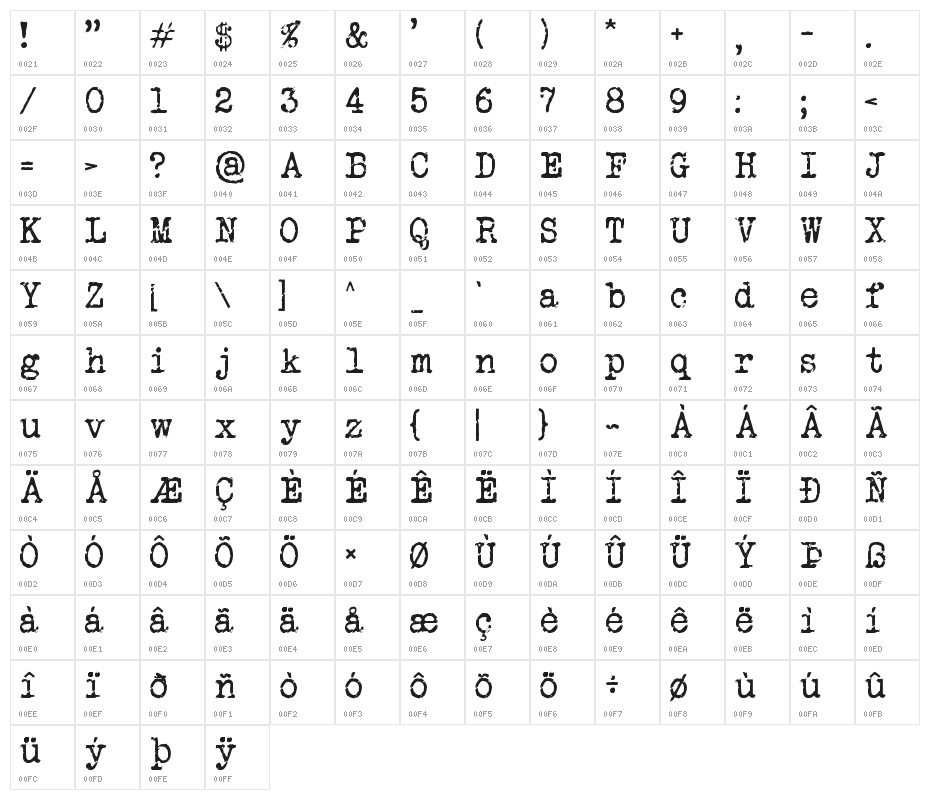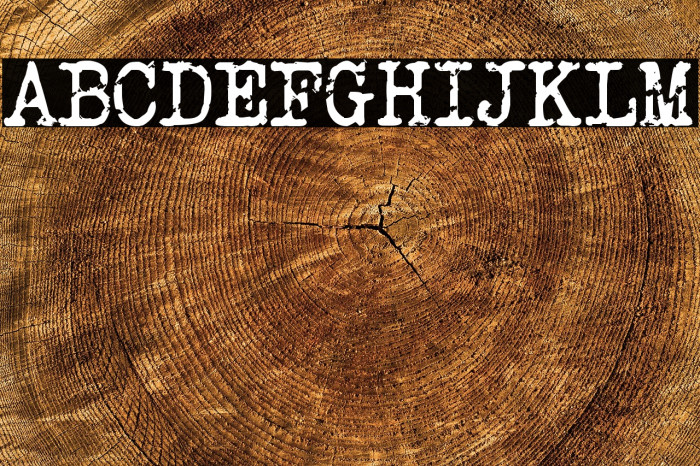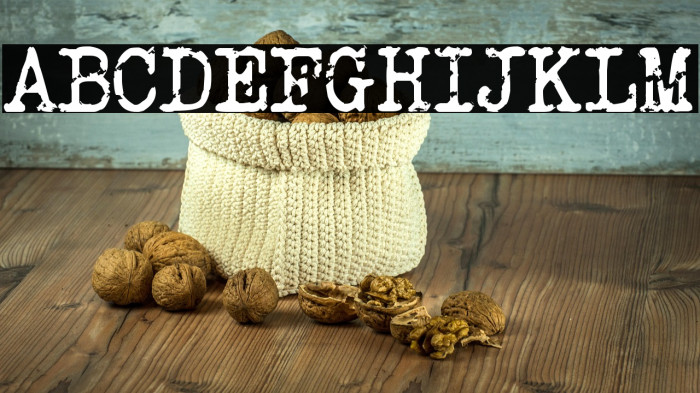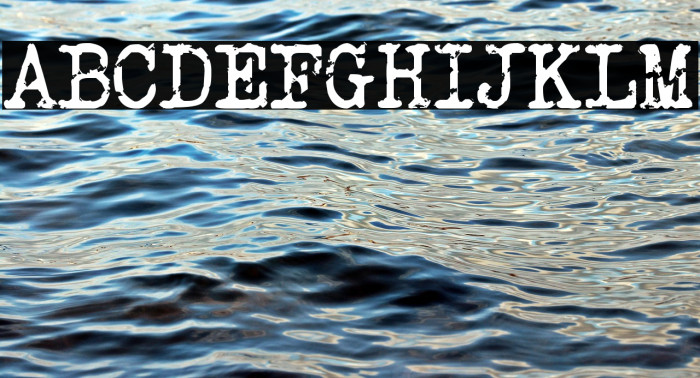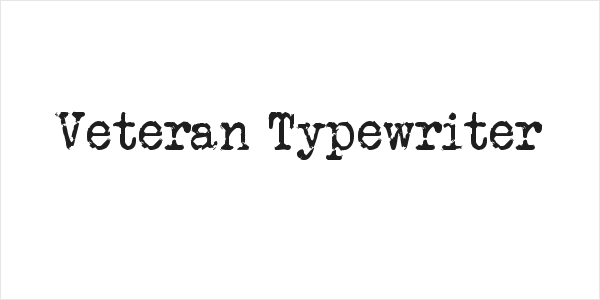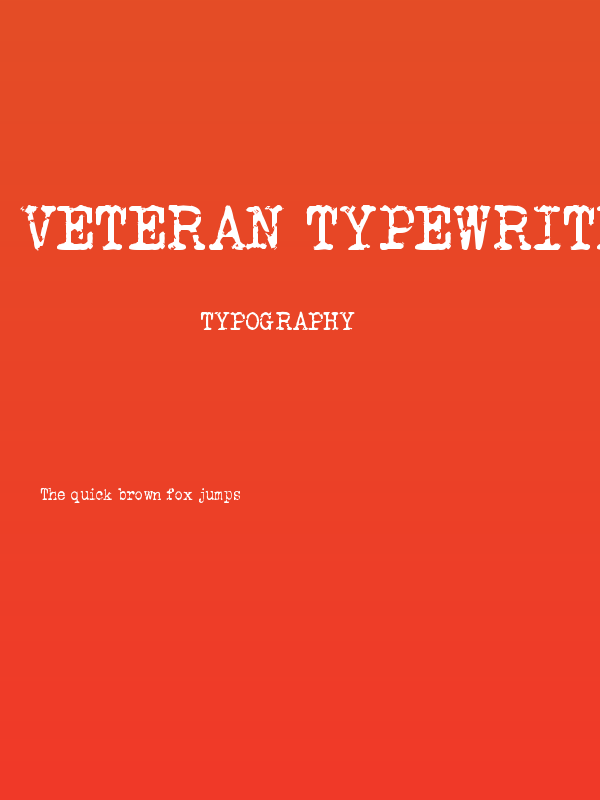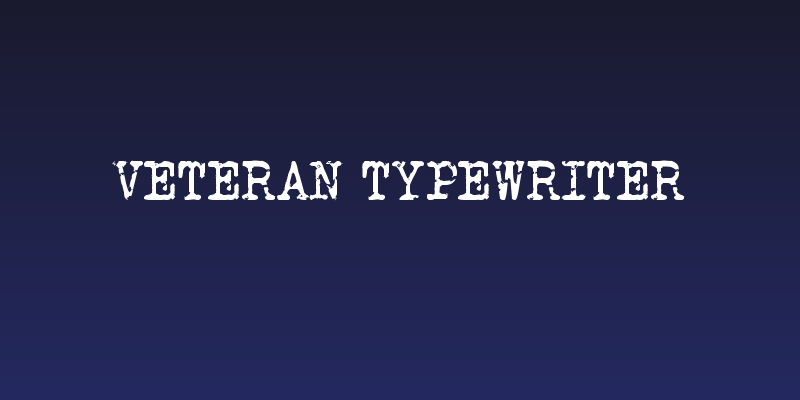
Veteran Typewriter Font
Veteran Typewriter Description
This font exudes a rugged, vintage typewriter aesthetic, characterized by its distressed and worn-out appearance. The letters are bold and have a rough texture, giving them a unique, aged look. The uppercase and lowercase letters maintain a consistent style, with slightly uneven edges that mimic the imperfections of old typewriter print. The numerals and special characters follow the same design, ensuring a cohesive appearance across all glyphs. This font is perfect for projects that require a retro or industrial feel, adding an element of authenticity and nostalgia.
Overall StyleVintage
Use CaseLogos, Posters, Branding
Proposed ProjectsIdeal for vintage-themed designs, posters, branding, and any project needing a retro or industrial touch.